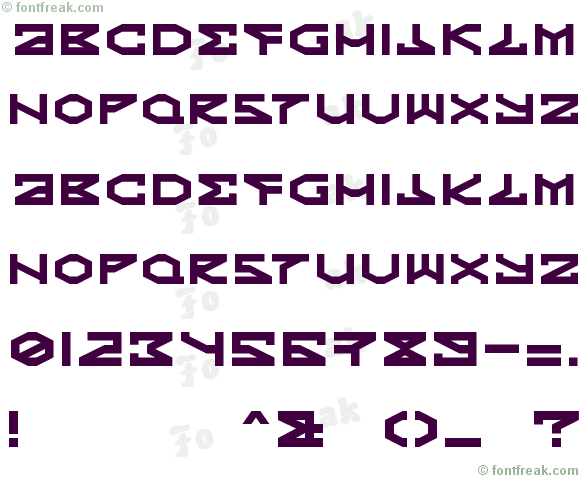
Kryptic
About Kryptic
Introducing the Kryptic font by Dustbust Fonts, a captivating display typeface that combines both flair and versatility. This freeware font, released in 2000, is perfect for graphic designers and small business owners looking to make a statement. Kryptic features a unique blend of geometric shapes and sharp angles, giving it a modern yet edgy appearance. Its bold stroke weight and minimal contrast create a strong visual impact, making it stand out in various applications.
The spacing of the letters is well-balanced, allowing for easy readability while maintaining a contemporary aesthetic. Decorative elements include subtle curves that soften the font's overall geometric design, adding an artistic touch without overwhelming the viewer. This makes Kryptic an ideal choice for a range of creative projects. Its striking visual style makes it perfect for movie posters, where it can grab attention and convey a sense of drama. It also works well for branding materials, such as restaurant menus and promotional flyers, where a bold statement is required. Additionally, Kryptic is a fantastic option for content creators looking to enhance social media graphics and digital marketing materials.
Targeting graphic designers, small business owners, and content creators, Kryptic is designed to inspire creativity and elevate projects to new heights. The versatility of this font ensures that it can be employed across various platforms, from print to digital.
In conclusion, the Kryptic font stands out due to its unique blend of geometric precision and artistic flair. Its bold design makes it an unforgettable choice for anyone looking to leave a lasting impression. With the Kryptic font free download available, there's no reason not to incorporate this striking typeface into your next project.